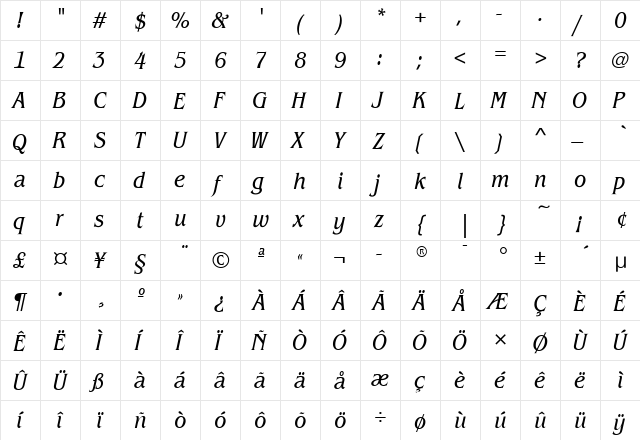
BenguiatCdITC Italic Font Preview
BenguiatCdITC Italic
BenguiatCdITC Italic Font Details
Design Context for BenguiatCdITC Typeface
BenguiatCdITC offers clean, dependable letterforms without strong stylistic allegiance, making it a practical choice for designers who need flexibility. Its italic angle brings a sense of urgency and motion to the letterforms.
Pro Tip: Use BenguiatCdITC for emphasis, pull quotes, and subheadings where its slanted energy can add rhythm to the layout.